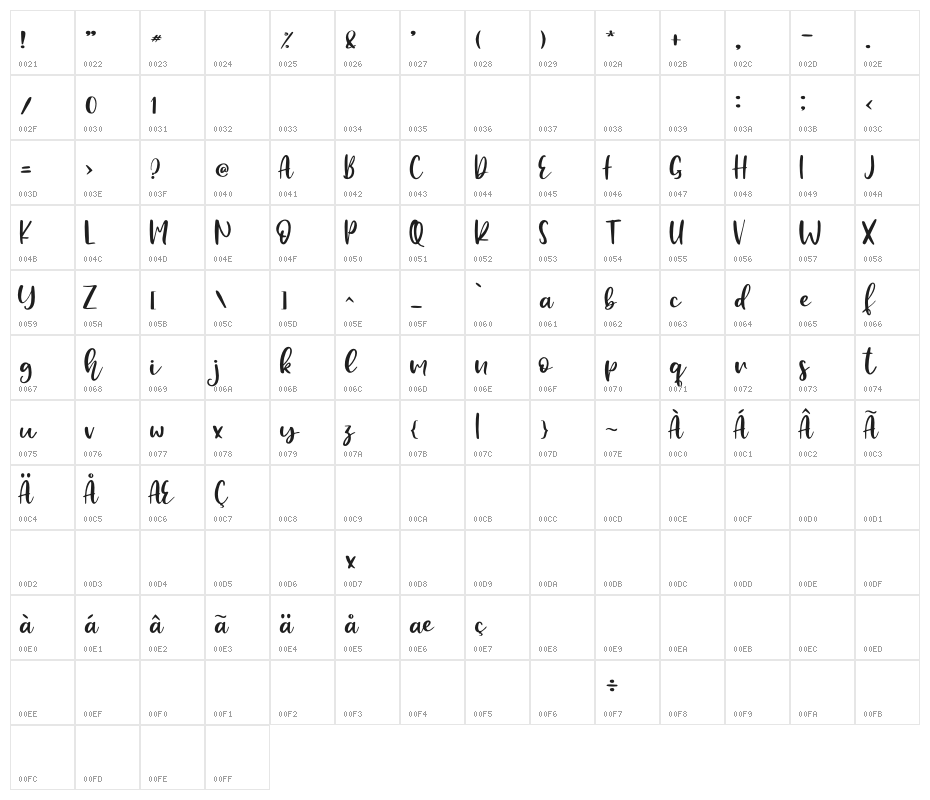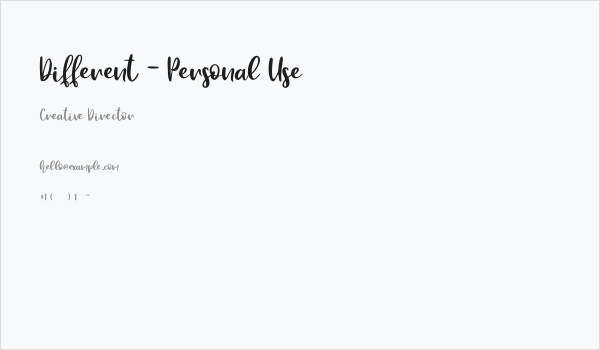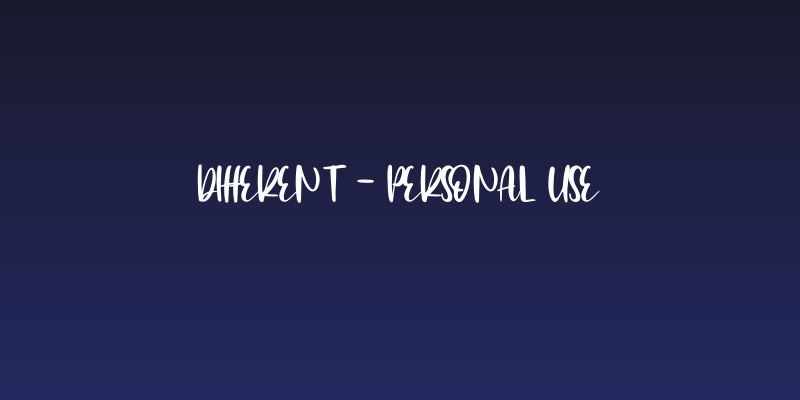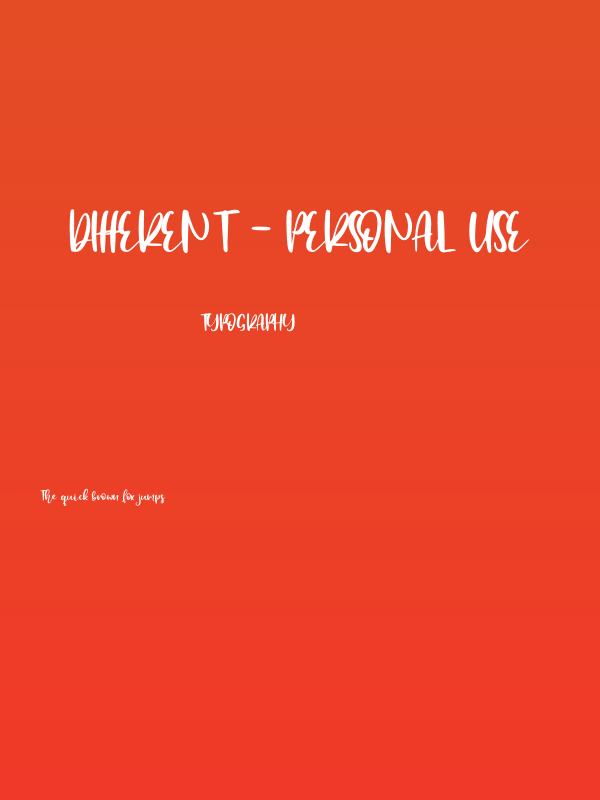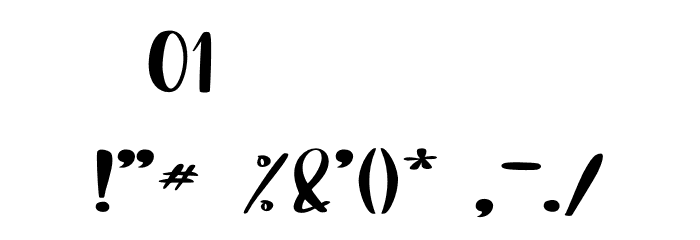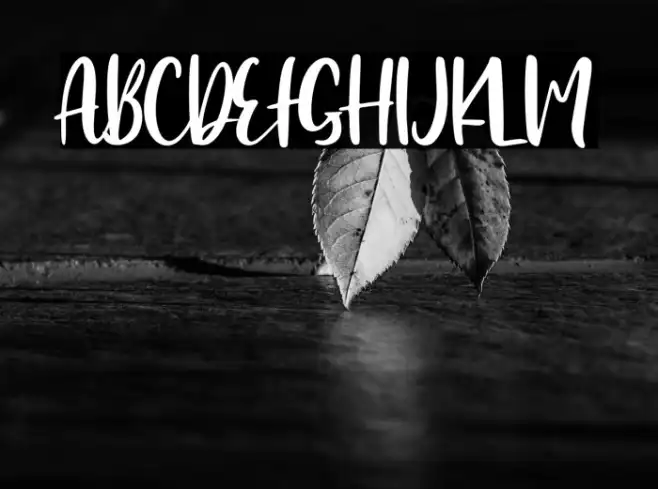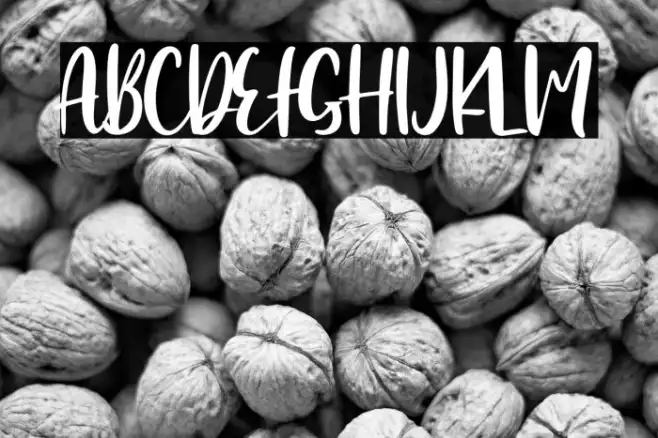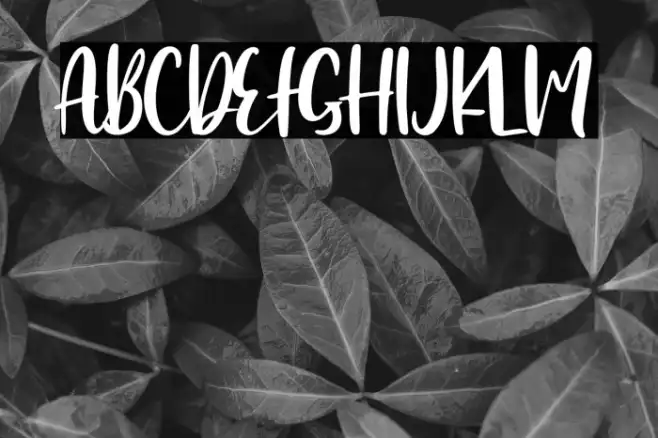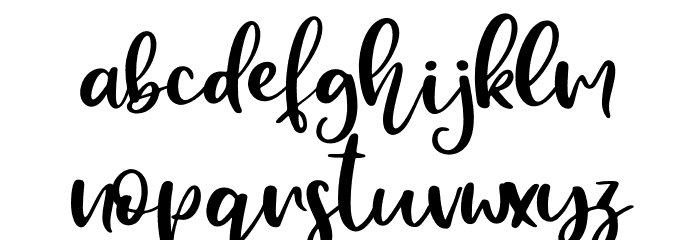
Different - Personal Use Font
Different - Personal Use Description
This font features a lively and expressive handwritten style, characterized by its fluid and dynamic strokes. The letters are connected in a cursive manner, giving it a personal and informal feel. The uppercase letters are bold and slightly slanted, while the lowercase letters maintain a consistent flow with playful loops and curves. The numerals and special characters are crafted with the same attention to detail, ensuring a cohesive look across all elements. This font exudes a sense of creativity and spontaneity, making it ideal for projects that require a touch of personality and warmth.
| Proposed Projects | Ideal for greeting cards, invitations, personal branding, and creative projects that require a personal touch. |